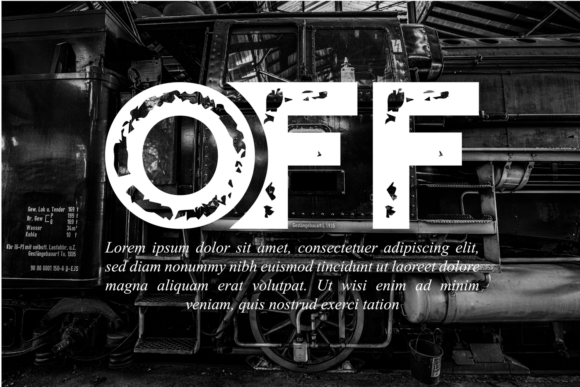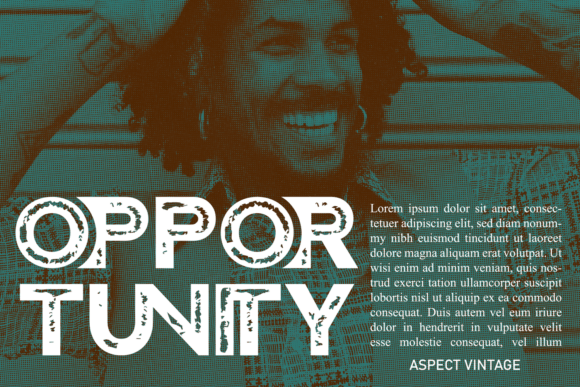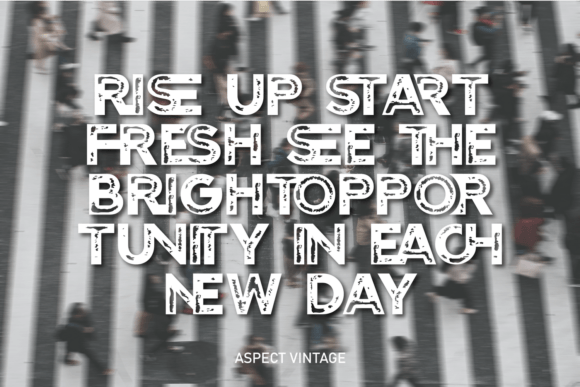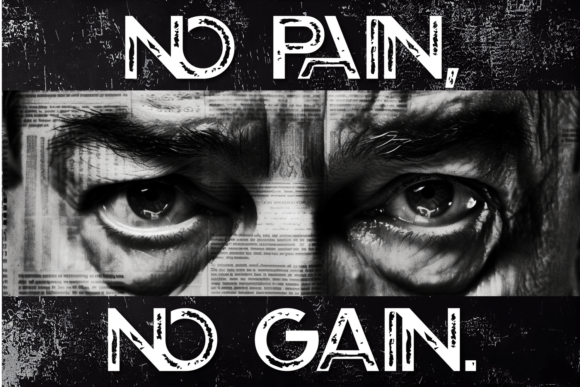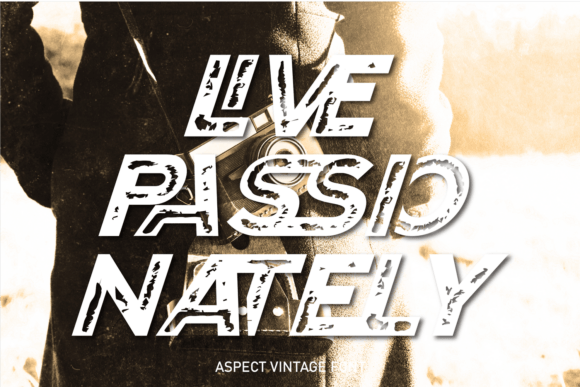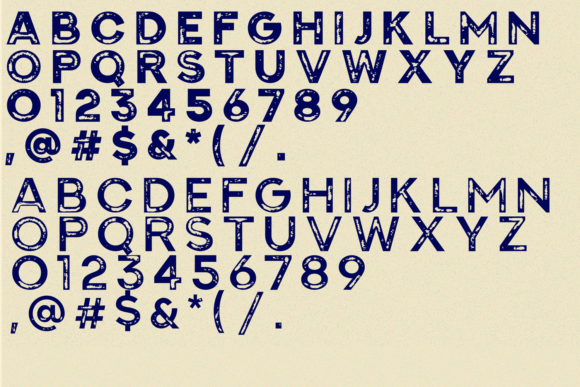
Discover the Timeless Charm of Aspect Vintage Font
In the world of typography, few fonts manage to evoke the essence of nostalgia and classic appeal as effectively as Aspect Vintage. This robust, retro-inspired font is designed to transport you back in time with its bold letterforms and distinctive vintage elements. Whether you’re a designer looking to add a touch of retro charm to your projects or a crafter seeking to infuse your creations with a sense of history and character, Aspect Vintage is an excellent choice.
The Essence of Aspect Vintage
Aspect Vintage is more than just a font; it’s a statement piece. Its strong, bold design is reminiscent of the classic typography found in vintage posters, advertisements, and signage from the early 20th century. The font’s distinctive features, such as its rugged serifs and elegant curves, combine to create a look that is both nostalgic and timeless. This makes Aspect Vintage an ideal choice for projects that require a sense of history and authenticity.
Uses of Aspect Vintage
The versatility of Aspect Vintage is one of its most compelling attributes. This font can be used in a wide range of applications, from headlines and posters to branding and packaging. Its bold, eye-catching design ensures that your message will stand out, whether you’re creating a vintage-inspired advertisement or a modern brand identity with a retro twist.
- Headlines and Posters: Use Aspect Vintage to create bold, attention-grabbing headlines and posters that evoke the classic feel of vintage advertising.
- Branding and Packaging: Add a touch of retro charm to your brand identity with Aspect Vintage, perfect for product packaging, logos, and marketing materials.
- Digital and Print Media: Whether for digital platforms or print media, Aspect Vintage brings a sense of nostalgia and character to any project, making it stand out in a crowded design landscape.
Why Choose Aspect Vintage?
In a design world filled with modern and minimalist fonts, Aspect Vintage offers a refreshing alternative. Here are a few reasons why designers and crafters are drawn to this unique font:
- Unique Aesthetic: Aspect Vintage provides a distinctive look that is hard to achieve with more contemporary fonts. Its retro-inspired design adds a layer of depth and character to your designs.
- Versatility: This font’s versatility means it can be used in a variety of contexts, from editorial design to branding and advertising.
- Emotional Connection: The nostalgic feel of Aspect Vintage can evoke a strong emotional response, making it ideal for projects where you want to connect with your audience on a deeper level.
Tips for Using Aspect Vintage Effectively
To get the most out of Aspect Vintage, consider the following tips:
- Pair with Complementary Fonts: Combine Aspect Vintage with simpler, more modern fonts to create contrast and visual interest.
- Experiment with Colors: Take advantage of the font’s vintage feel by pairing it with a palette of earth tones, pastels, or classic color schemes.
- Play with Texture: Add depth to your design by incorporating textures that complement the vintage aesthetic of Aspect Vintage.
Aspect Vintage is a font that truly stands the test of time. Its strong, retro-inspired design makes it a valuable addition to any designer’s or crafter’s toolkit. Whether you’re looking to evoke a sense of nostalgia, add character to your designs, or simply stand out in a crowded design landscape, Aspect Vintage is an excellent choice. With its bold letterforms, distinctive vintage elements, and versatile application, this font is sure to bring a touch of retro charm and timeless appeal to your projects.